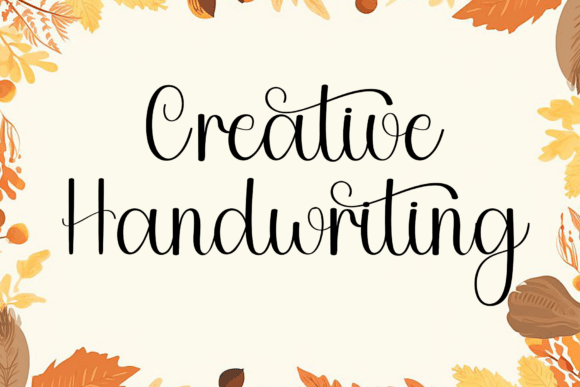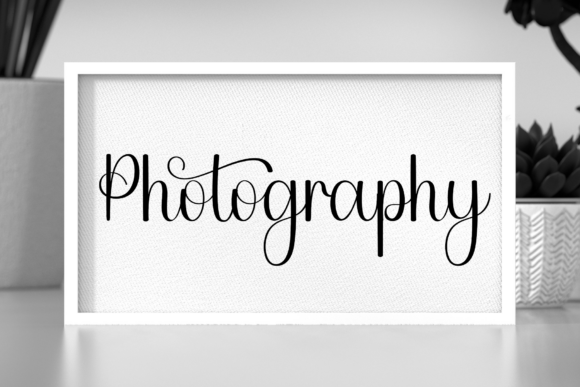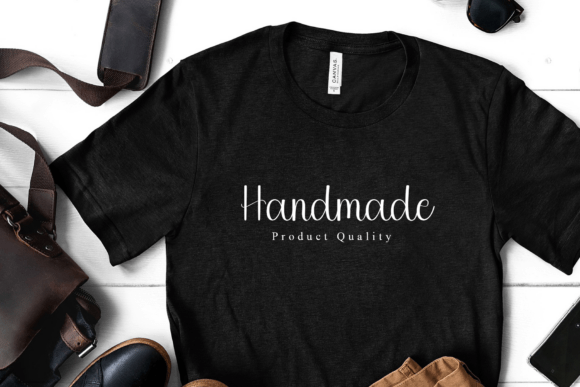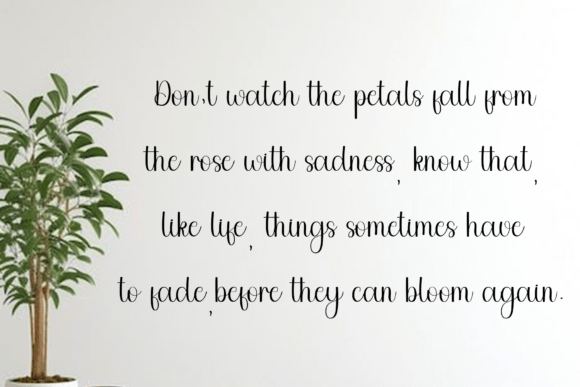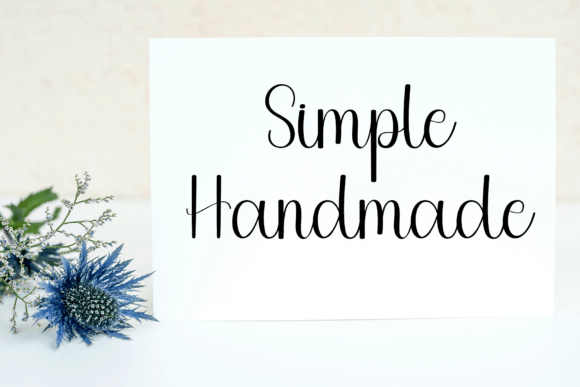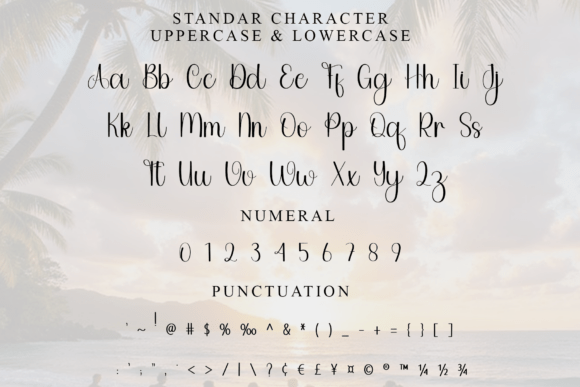
Embracing the Warmth of Autumn Font: A Designer’s Delight
Autumn Font is a casual and creative typeface that exudes warmth and friendliness. Its round, playful strokes create a relaxed and approachable feel, perfect for personal projects, invitations, and social media graphics. In this article, I’ll share my experience with Autumn Font, its features, and how to make the most of it in your designs.
A Honest Review of Autumn Font
- ✨ The charming, hand-drawn aesthetic adds a fun and unique touch to any design.
- ✅ The relaxed and approachable feel makes it perfect for personal projects and social media graphics.
While Autumn Font is a beautiful typeface, there are a few things to keep in mind: ⚠️
- 🤔 The font may not be suitable for formal or professional projects, as it has a distinctly casual feel.
- ⚠️ Some users may find the font a bit too playful or childish for their taste.
A Practical Guide to Using Autumn Font
The Story Behind Autumn Font
Autumn Font was designed with the intention of capturing the warmth and coziness of the fall season. The designer, inspired by the changing leaves and crisp air, aimed to create a typeface that would evoke feelings of comfort and approachability. The result is a charming, hand-drawn font that’s perfect for a wide range of creative projects.
Q: Is Autumn Font suitable for digital and print projects?
A: Yes, Autumn Font is suitable for both digital and print projects. Its clear, legible design makes it perfect for a wide range of applications, from social media graphics to business cards and brochures.